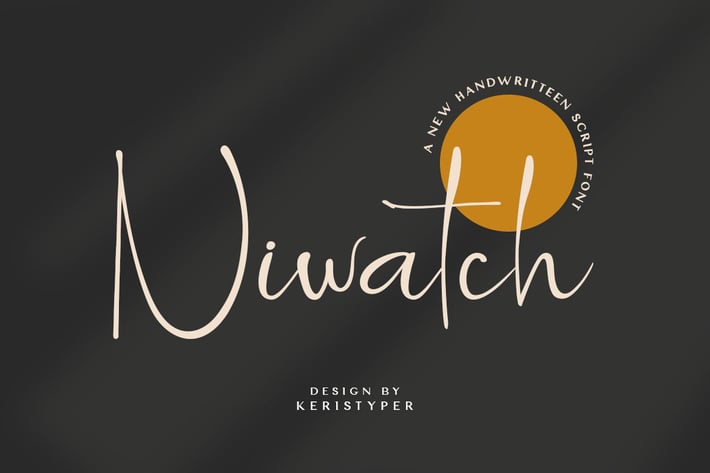
Niwatch Font
Niwatch is an elegant modern script font. With high contrast stroke and fun character. This font is good for logo design, Social media, Movie Titles, Books Titles, short text even a long text letter, and good for your secondary text font with sans or serif. Make a stunning work with Roselites font.
Featured:
-Standard Uppercase & Lowercase
-Numeral & Punctuation
-Multilingual : ä ö ü Ä Ö Ü ß ¿ ¡
-Alternate & Ligature